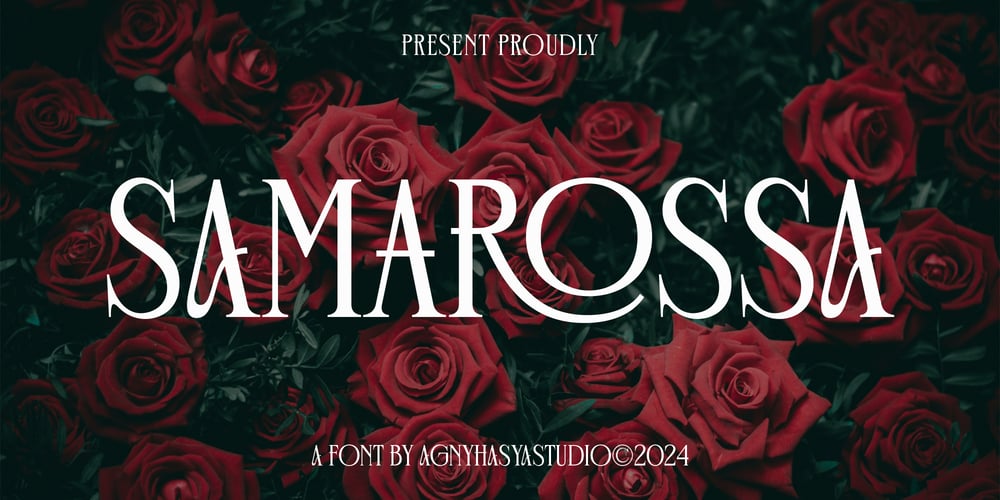
Samarossa Font Family was designed by Firman Maulana and published by Agny Hasya Studio. Samarossa contains 2 styles and family package options. Proudly Present Samarossa Is a Classic Modern Serif Display Typeface That Is Elegant. It Comes in 2 (Two) Styles (Regular & Italic) and Is Created With Stylistic Alternates and Ligatures. Combine It and Make Your Perfect Typography Design!Featured with Uppercase and Lowercase, Numeral and Punctuation, Multilingual Support, and Opentype Features.Perfect for Your Design Projects Like Logos, Branding, Advertising, Product Designs, Stationery, Magazine Designs, Book/Cover Title Designs, Photography, Art Quotes, Wedding Designs, Fashion Designs, Special Events, Labels, Product Packaging, and More.